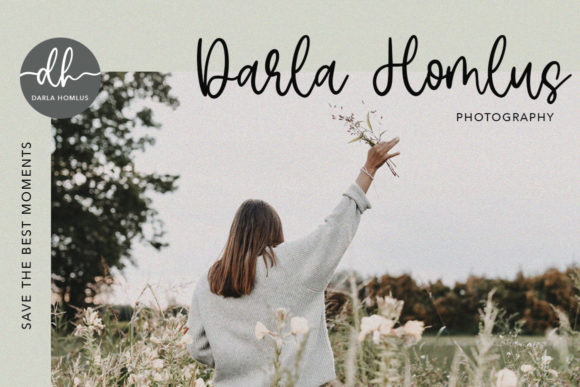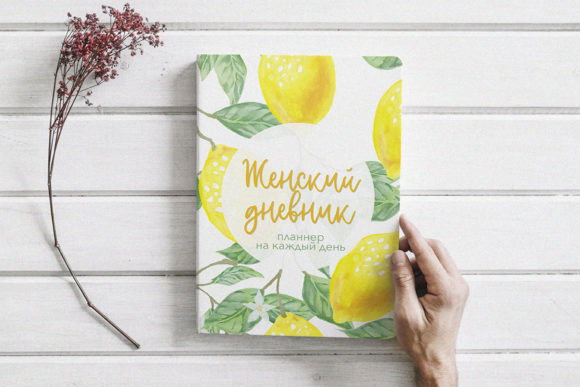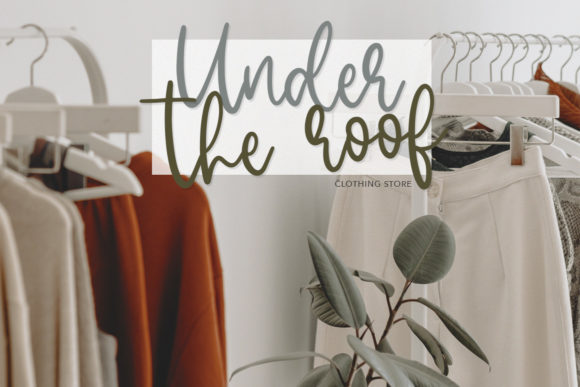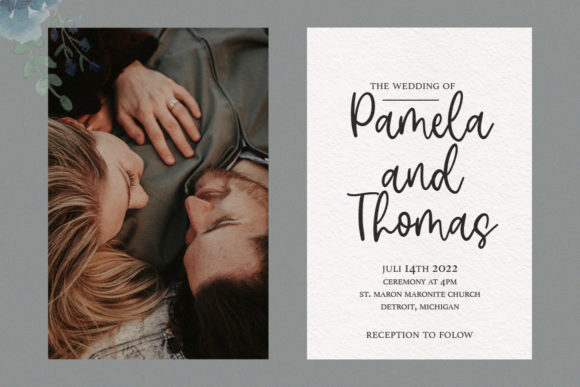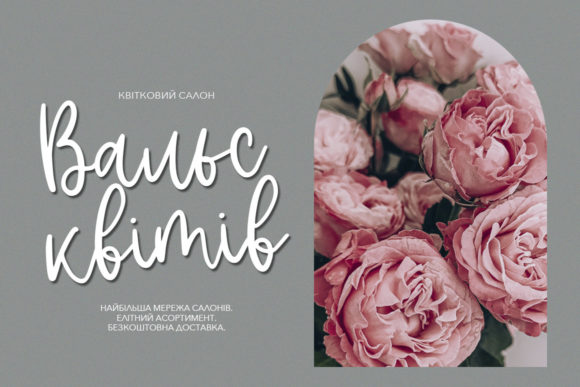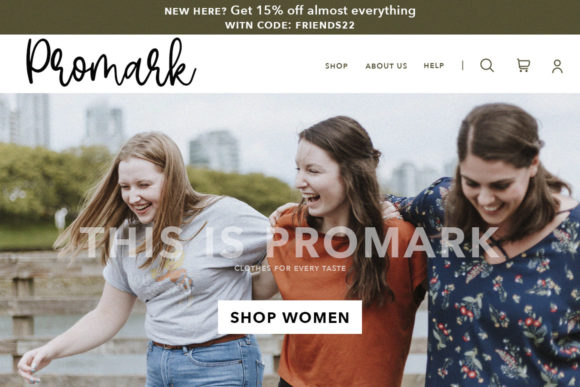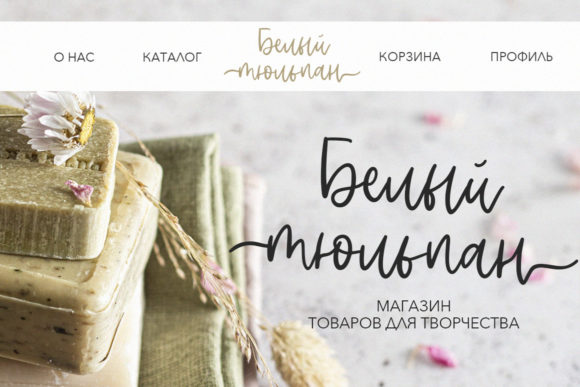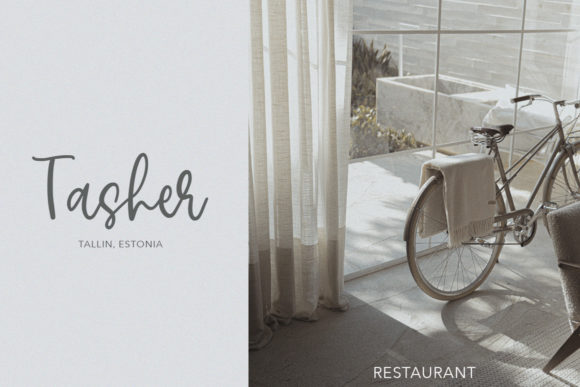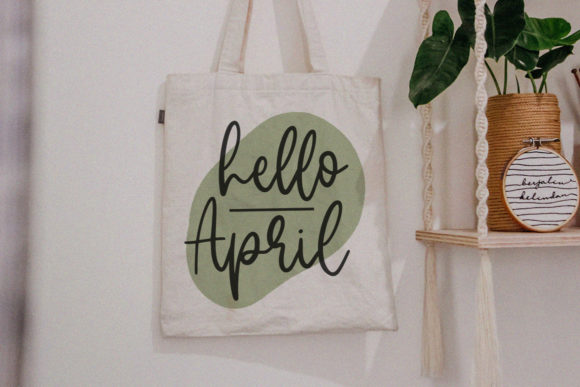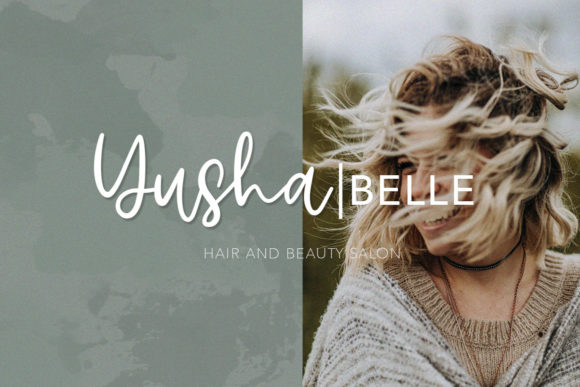
Limerick Font
About Limerick Font
“Limerick” is not just a font; it’s a masterpiece meticulously crafted to embody the perfect synergy of modern aesthetics and delicate charm. With an air of contemporary sophistication and flawlessly balanced forms, this font has been created to transcend the ordinary and enhance the sheer beauty of your projects.
The font’s allure stems from its artful fusion of modernity and delicacy. Each stroke, carefully designed to strike the right balance between thickness and thinness, contributes to an aesthetic that is both visually captivating and refined.
As you immerse “Limerick” into various design endeavors, you’ll witness its transformative impact. Whether it graces branding materials, elevates invitations, enhances editorial layouts, or embellishes any creative pursuit, the font’s versatility shines through, elevating the overall appeal of your work.
In essence, “Limerick” is an artistic endeavor that marries modernity with delicate allure. Its potential to magnify the beauty of your designs, combined with its contemporary yet refined script style, positions it as a treasure trove for designers striving to create visuals that are not just captivating but also carry a touch of timeless elegance.